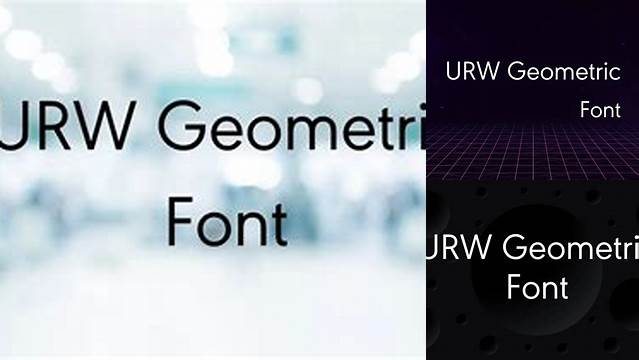
Free URW Geometric Font Download: A Designer's Guide
Introduction: Diving into the World of URW Geometric Fonts
Hey guys, ever stumbled upon a font that just screams modernity and clean design? Well, chances are, you've encountered a URW Geometric font. These fonts are incredibly versatile, making them a favorite among designers and anyone looking to add a touch of sleekness to their projects. In this article, we're diving deep into the world of URW Geometric free font downloads, exploring what makes these fonts so special, where to find them, and how to use them effectively. We'll cover everything from the history of geometric fonts to practical tips for using them in your designs. So, whether you're a seasoned designer or just starting out, get ready to unlock the power of URW Geometric fonts! These fonts are not just typefaces; they're design tools that can elevate your work and communicate your message with clarity and style. From logos and websites to posters and presentations, the right URW Geometric font can make all the difference. We'll explore the characteristics that define these fonts, their origins, and why they continue to be a popular choice for modern design. We'll also delve into the practical aspects of finding and downloading these fonts, ensuring you have the resources you need to start creating. So, buckle up, because this is going to be an exciting journey into the world of geometric fonts!
Let's kick things off with a quick rundown of what makes these fonts so unique. Geometric fonts, at their core, are based on simple geometric shapes like circles, squares, and triangles. This gives them a clean, modern, and often minimalist aesthetic. They are designed with mathematical precision, which results in a sense of balance and harmony. This precision makes them extremely readable, especially at different sizes and on various screens. In a world saturated with visual information, the clarity of URW Geometric fonts makes them stand out. They don't just look good; they communicate effectively. This is especially important in today's fast-paced digital environment. When you choose a geometric font, you're not just choosing a typeface; you're choosing a design statement. A statement of sophistication, modernity, and clarity. These fonts work well with a variety of design styles. They can be bold and eye-catching or subtle and refined. The key is to understand their characteristics and how they can best complement your project. As we move forward, we'll get into the nitty-gritty details. Ready to take your design skills to the next level? Let's get started!
The History and Characteristics of Geometric Fonts
Alright, let's get to know these fonts a little better, shall we? The history of geometric fonts is pretty fascinating. These fonts first emerged in the early 20th century, coinciding with the rise of modernism and the Bauhaus movement. Designers at the time were all about rejecting the ornate styles of the past, embracing simplicity, and focusing on functionality. This is where the beauty of URW Geometric fonts comes in! They are a direct response to that need for a clean, functional aesthetic. Key figures like Herbert Bayer and Paul Renner were instrumental in developing these fonts. The concept was simple: build letters from basic geometric shapes. Think circles for the 'O', squares for the 'H', and triangles for the 'A'. This approach resulted in typefaces that were not only visually striking but also highly legible, even at small sizes. Their clean lines and simple forms also made them incredibly versatile. They could be used for everything from headlines to body text. This flexibility is one of the reasons why URW Geometric fonts have remained popular for over a century.
Now, let's break down the key characteristics that make these fonts so recognizable. Firstly, as mentioned before, they are rooted in basic geometric shapes. This gives them a distinctive look and feel. Secondly, they often have a strong emphasis on symmetry and balance. Every element is carefully considered to create a sense of harmony. Thirdly, they tend to have a high degree of legibility. This is especially important for digital screens, where clarity is essential. Fourthly, they usually have a minimalist aesthetic. They avoid unnecessary embellishments, focusing instead on the essential forms of the letters. Finally, URW Geometric fonts are versatile. They can be used in a wide range of design applications, from logos and websites to posters and packaging. It's this combination of characteristics that makes them so powerful. Understanding these features is crucial if you want to effectively use these fonts in your designs. So, whether you're crafting a brand identity, designing a website, or working on any other visual project, the right URW Geometric font can bring your vision to life! These fonts offer a unique blend of style, functionality, and timeless appeal. Let's delve into where you can find these fonts, shall we?
How to Effectively Use URW Geometric Fonts in Your Designs
Okay, you've got your URW Geometric free font download, now what? Knowing how to use these fonts effectively is essential to making your designs pop. So, let's dive in and explore some best practices. First and foremost, consider the context. These fonts work exceptionally well in modern, minimalist designs. Think websites, logos, and anything where you want a clean, contemporary feel. They are great for headlines, but use them sparingly in body text. Too much geometric font can make your text difficult to read. Aim for a good balance between readability and style. Now, let's talk about pairing fonts. Combining a URW Geometric font with a contrasting typeface can create a stunning visual effect. Try pairing a geometric sans-serif with a classic serif font for body text. This combination can provide balance and visual interest. Consider the overall tone. These fonts often convey a sense of professionalism and modernity. Make sure the font you choose aligns with your project's goals and values. For example, a geometric font might be a good choice for a tech company's logo but less appropriate for a children's book. Next, experiment with different weights and sizes. Geometric fonts come in various weights, from light to bold. Use different weights to create emphasis and hierarchy in your design. Try experimenting with different sizes and see what works best for the project. Don't be afraid to play around with the kerning and leading. This refers to the spacing between letters and lines. Fine-tuning these settings can significantly improve the readability of your text. Always test your design across different devices and platforms. Make sure your font looks good on all devices, from smartphones to desktop computers. This is especially important in today's digital world.
Finally, keep it simple. These fonts are all about clarity and elegance. Avoid using too many different fonts or excessive design elements. Let the font speak for itself. By following these tips, you can harness the power of URW Geometric fonts to create stunning and effective designs. Remember, practice makes perfect. The more you experiment with these fonts, the better you'll become at using them. So, go forth and create some amazing designs! Understanding these tips is the key to making your designs stand out. And don't forget to have fun while you're at it!
Conclusion: Unleashing Your Creativity with URW Geometric Fonts
Alright, guys, we've covered a lot of ground today. We started with an introduction to URW Geometric fonts, then explored their history, characteristics, and where to find them. Finally, we got into the nitty-gritty of how to use these fonts effectively in your designs. I hope that you've found this guide helpful and inspiring. Remember, design is all about expressing your unique vision. So, don't be afraid to experiment, explore, and have fun! Now, go out there and unleash your creativity with URW Geometric fonts! Remember, the perfect font can make all the difference. Thanks for reading!